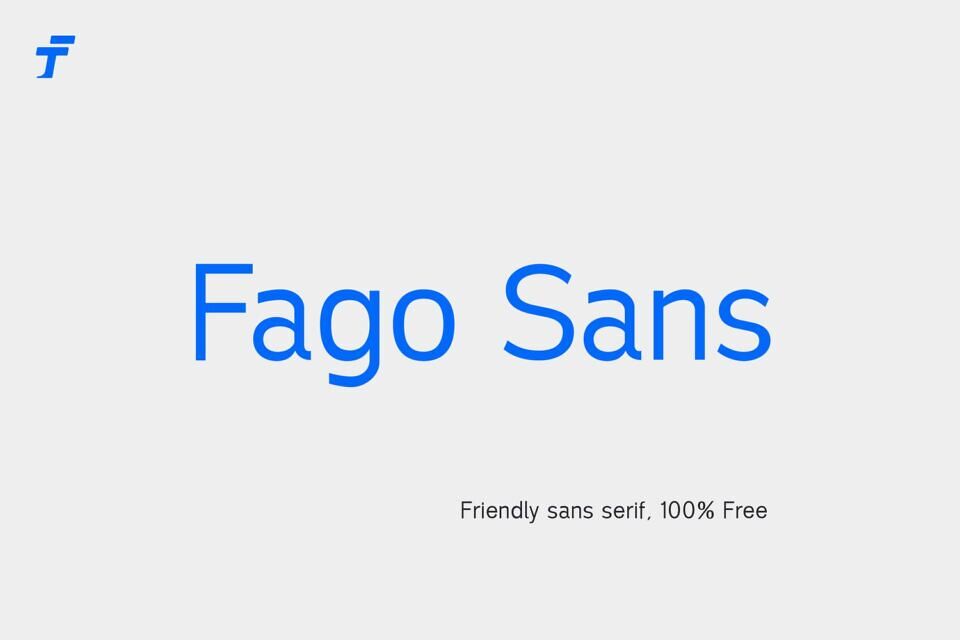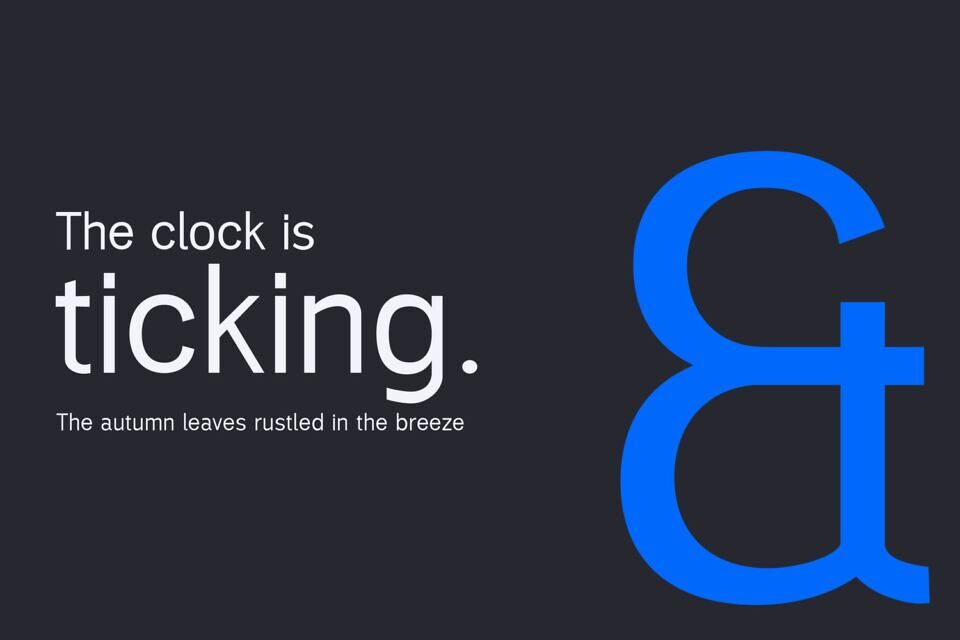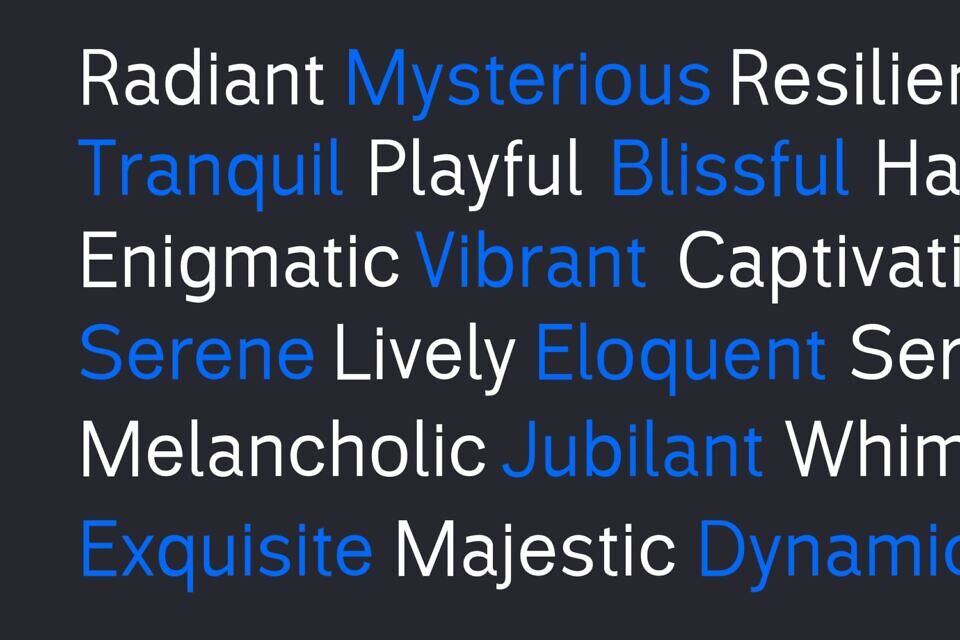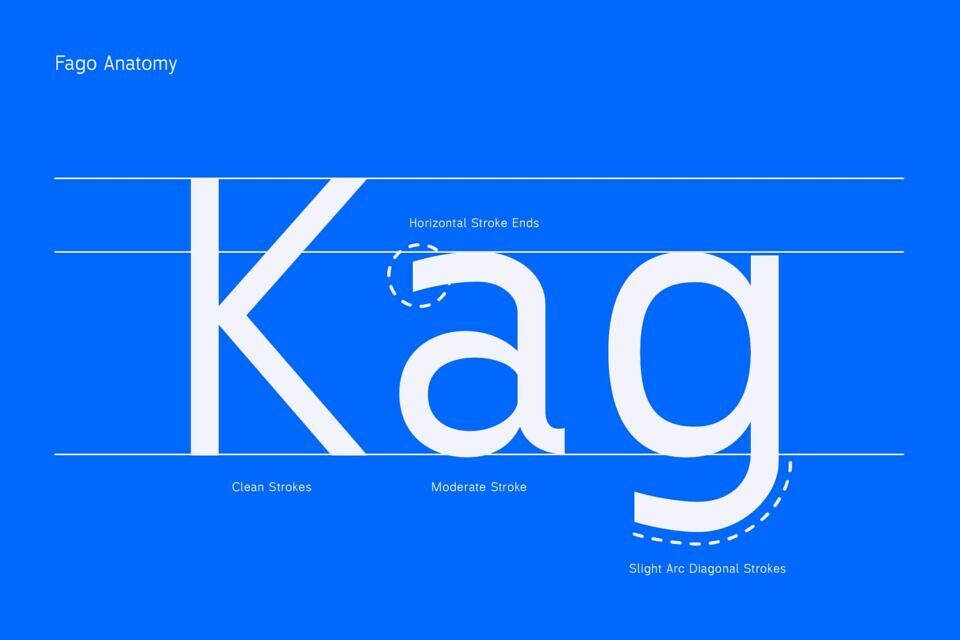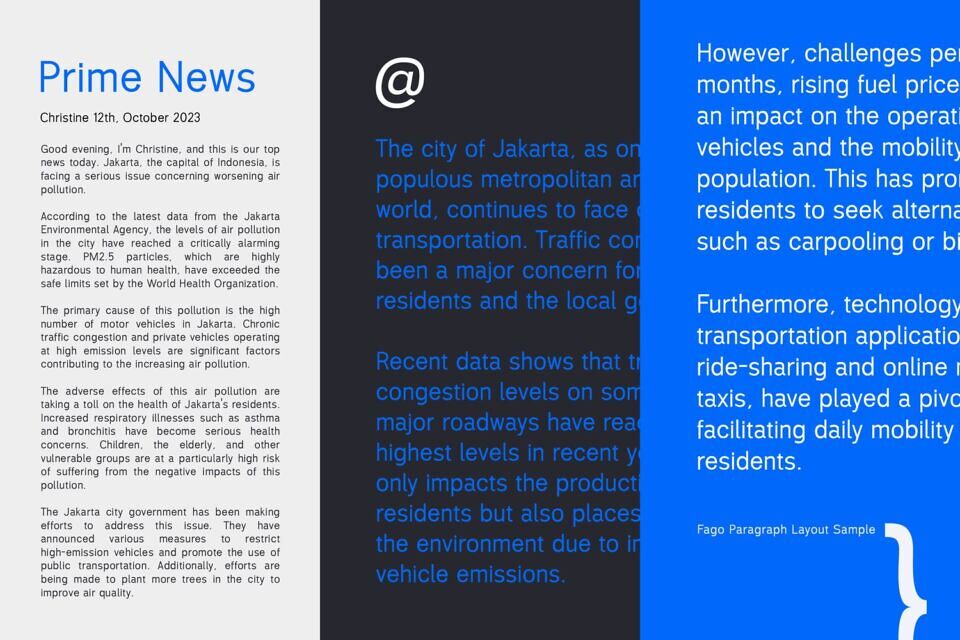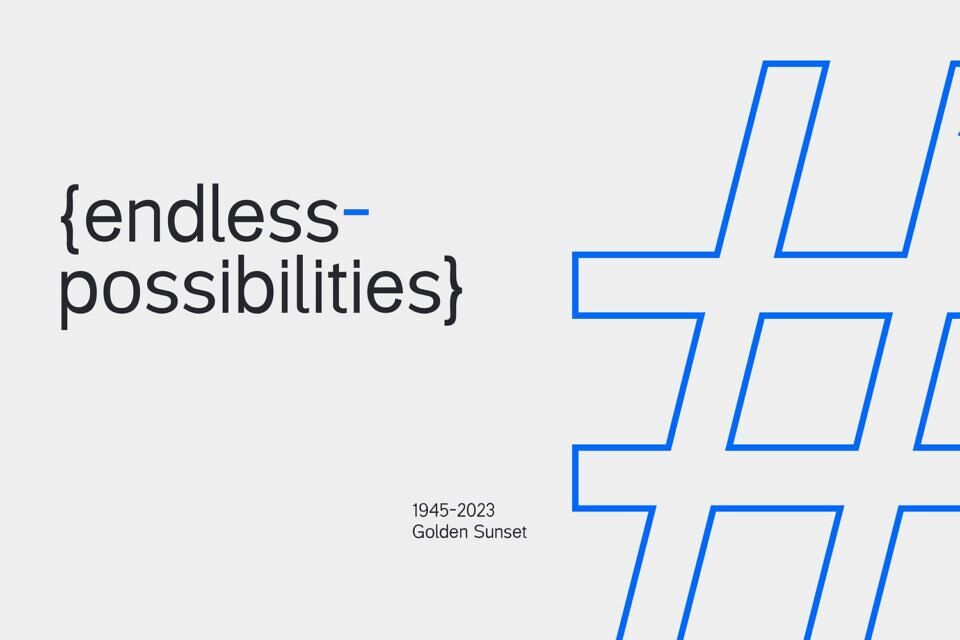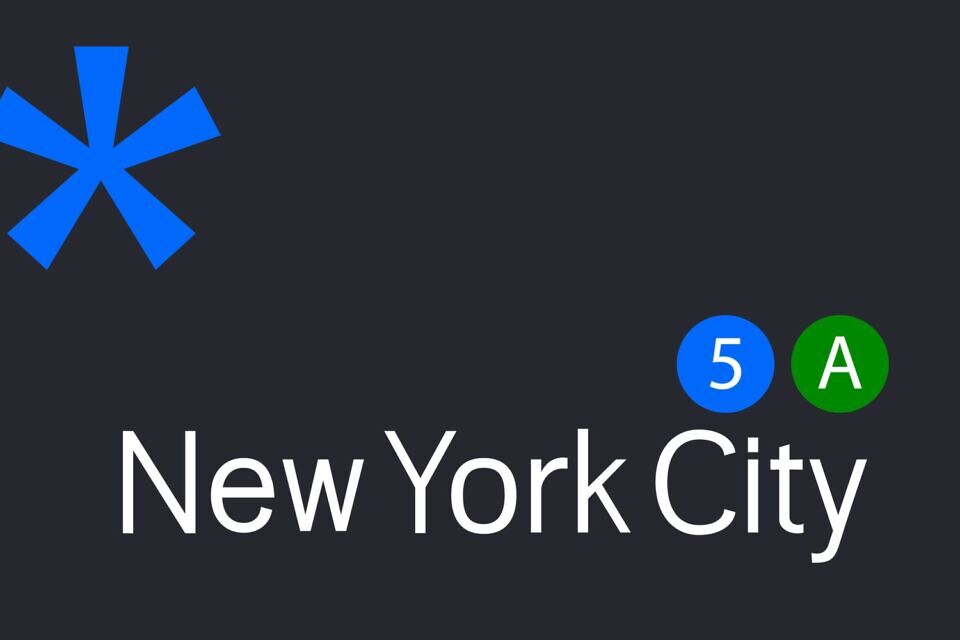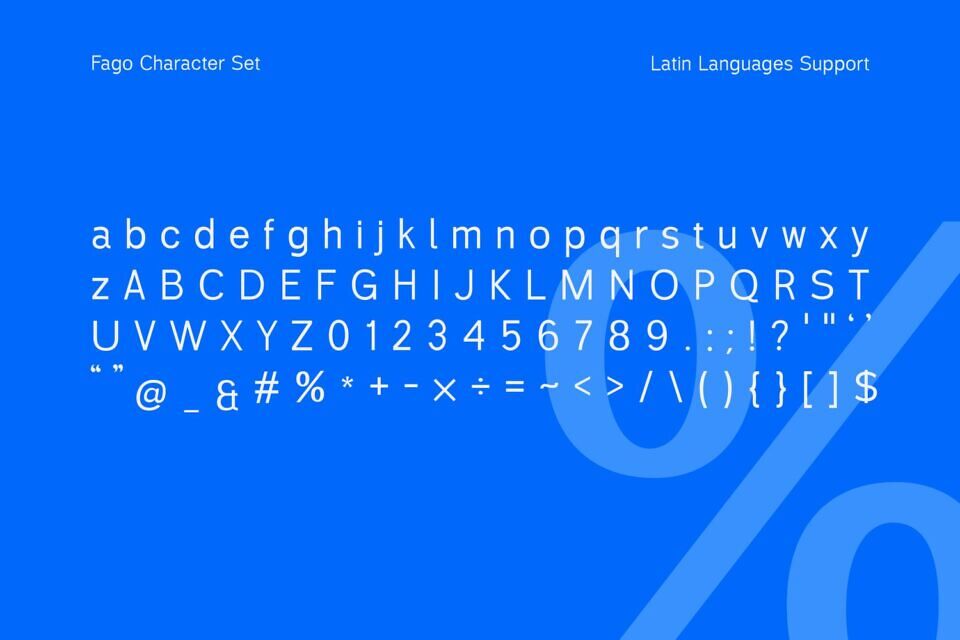
Fago Sans Font
Introducing Fago, a versatile sans-serif typeface designed for maximum readability, a friendly modern aesthetic, and seamless application across all media. Whether you’re creating a brand identity, a professional website, or clean editorial layouts, Fago provides the perfect balance between clarity and contemporary style.
Fago excels in both headline and body text usage, offering a warm yet professional tone that makes every design feel approachable, polished, and timeless.
Perfect for:
• Brand identity and logo design
• Website and app UI typography
• Editorial layouts, magazines, and books
• Corporate marketing materials
• Modern minimalist packaging and branding